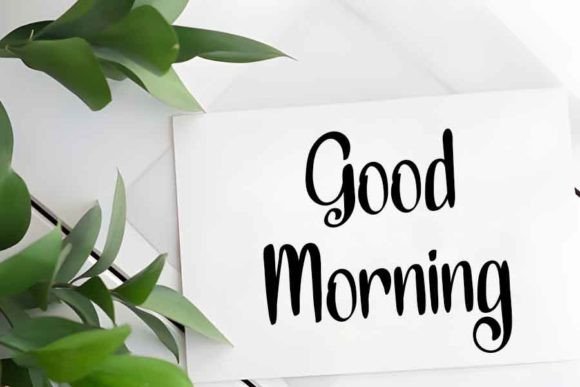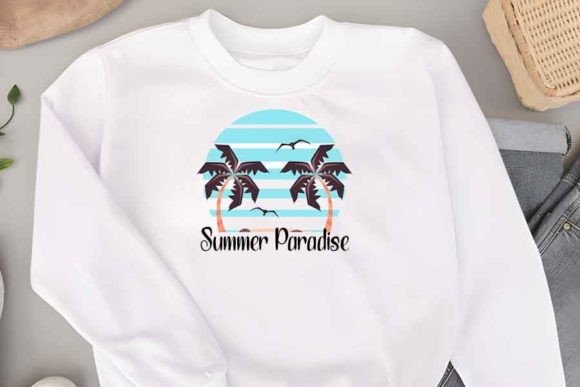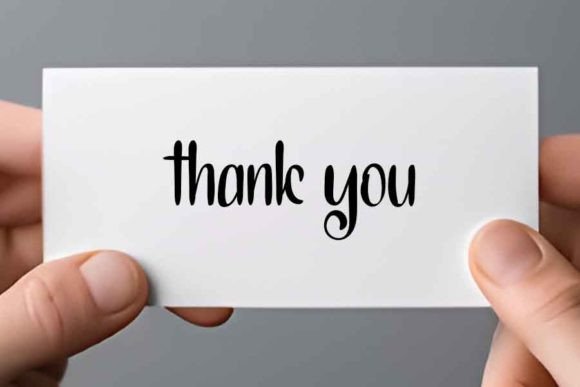
Circus Font: The Ultimate Relaxed and Laid-Back Handwritten Font
Are you tired of using the same old fonts in your designs? Look no further than the Circus font, a relaxed and laid-back handwritten font that’s perfect for adding a touch of personality to your creations. In this article, we’ll dive into the world of Circus font, exploring its features, benefits, and uses, and why it’s a must-have for designers and crafters alike.
What is Circus Font?
Circus font is a beautiful, handwritten font that’s designed to bring a sense of relaxation and casualness to your designs. With its smooth, flowing lines and carefree vibe, Circus font is perfect for creating a wide range of projects, from social media graphics and blog posts to branding materials and craft projects.
Key Features of Circus Font
So, what makes Circus font so special? Here are just a few of its key features:
- Handwritten style: Circus font has a beautiful, handwritten style that’s perfect for adding a personal touch to your designs.
- Relaxed and laid-back: This font has a super relaxed and laid-back vibe that’s perfect for creating casual, laid-back designs.
- Versatile: Circus font can be used for a wide range of projects, from social media graphics to branding materials and craft projects.
- Easily readable: Despite its casual style, Circus font is still easily readable, making it perfect for body text and other applications where legibility is key.
Benefits of Using Circus Font
So, why should you choose Circus font for your next project? Here are just a few of the benefits of using this amazing font:
- Adds personality to your designs: Circus font has a unique, carefree style that adds personality and interest to your designs.
- Perfect for creative projects: Whether you’re working on a craft project, social media graphic, or branding material, Circus font is the perfect choice.
Uses for Circus Font
So, what can you use Circus font for? The possibilities are endless! Here are just a few ideas to get you started:
- Social media graphics: Use Circus font to create eye-catching social media graphics that showcase your brand’s personality.
- Branding materials: Add a touch of personality to your branding materials, such as business cards, brochures, and letterheads.
- Craft projects: Circus font is perfect for craft projects, such as scrapbooking, card making, and DIY signs.
- Blog posts: Use Circus font to add a touch of personality to your blog posts and make them stand out.
Tips for Using Circus Font
Here are a few tips for getting the most out of Circus font:
- Use it sparingly: While Circus font is beautiful, it can be overwhelming if used too much. Use it sparingly to add emphasis and interest to your designs.
- Pair it with other fonts: Circus font pairs well with a range of other fonts, including sans-serif fonts and script fonts.
- Experiment with colors: Circus font looks great in a range of colors, from bold and bright to soft and pastel.
| Font Name | Circus Font |
| Author | Leontyn Art |
In conclusion, Circus font is a relaxed and laid-back handwritten font that’s perfect for adding a touch of personality to your designs. With its smooth, flowing lines and carefree vibe, Circus font is perfect for creating a wide range of projects, from social media graphics and blog posts to branding materials and craft projects. So why not give it a try and see the difference it can make?